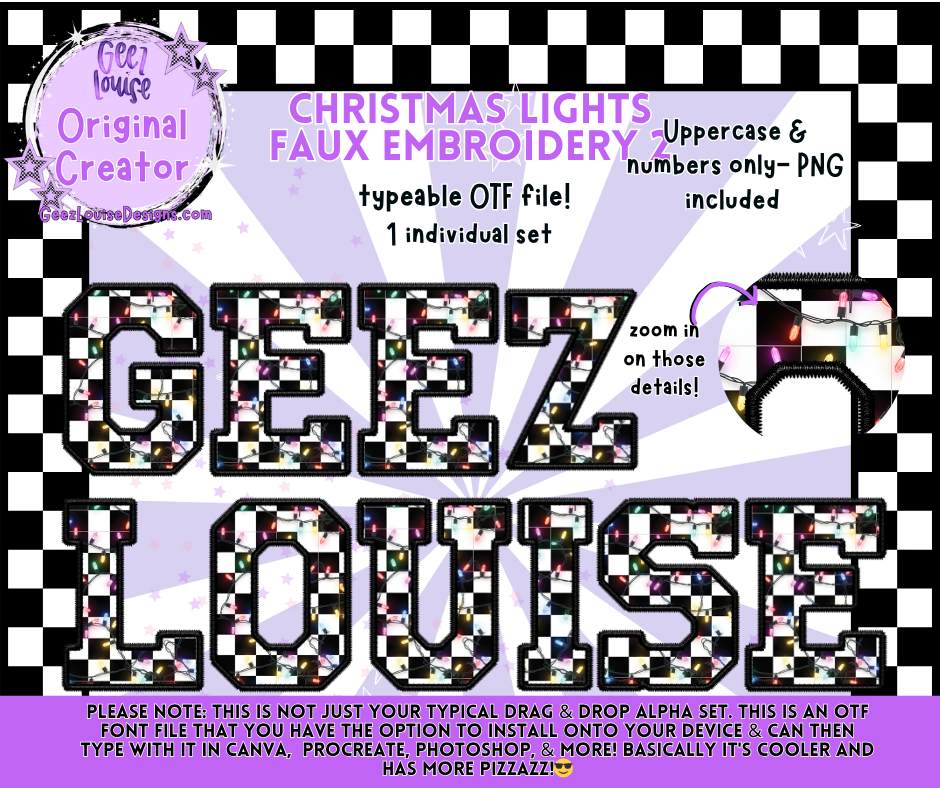
Light up your holiday designs with the Christmas Lights Faux Embroidery Alpha!
This festive set combines stitched embroidery textures with glowing Christmas lights, creating a cozy and cheerful design perfect for holiday projects. Whether you’re crafting seasonal apparel or digital graphics, this alpha adds that merry and bright Geezy flair.
Faux embroidery texture with detailed light strands
Not your average alpha — this is a typeable OTF font that gives your designs instant embroidered style with sparkling holiday charm!